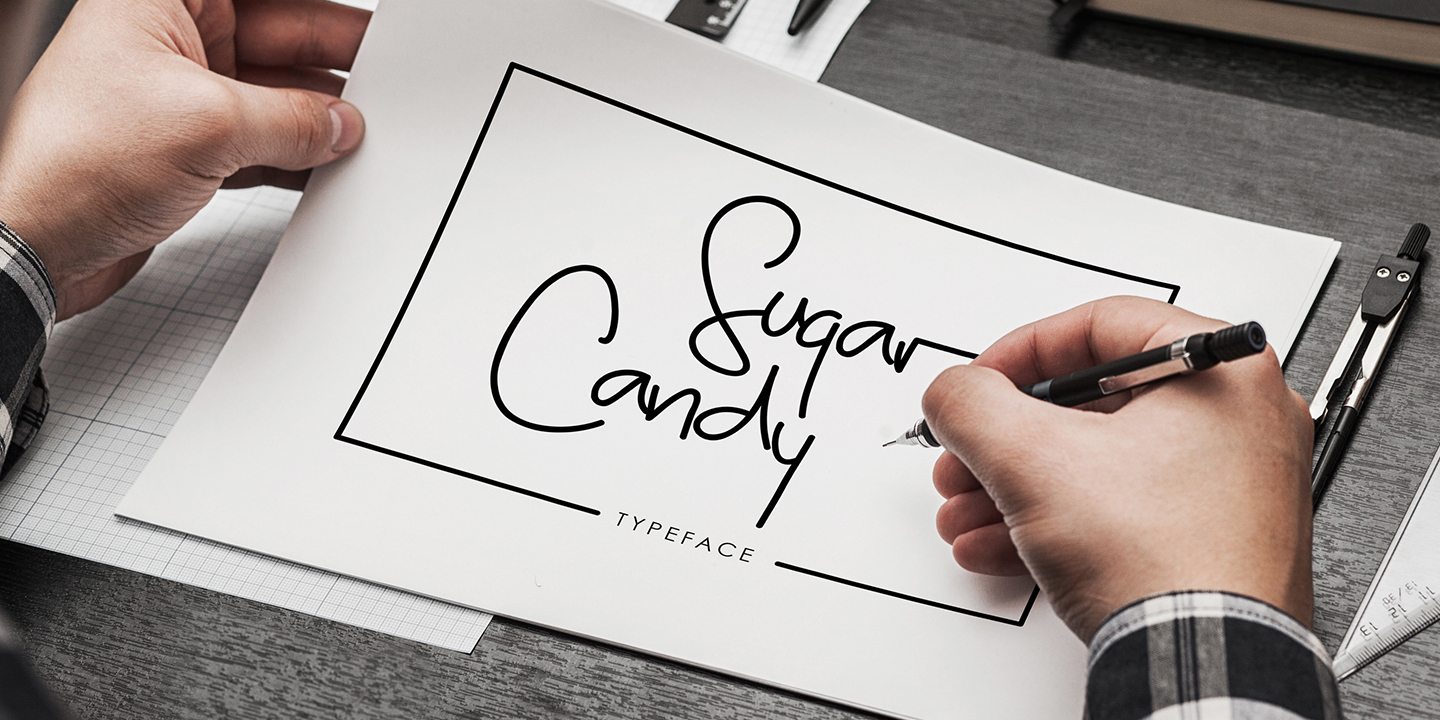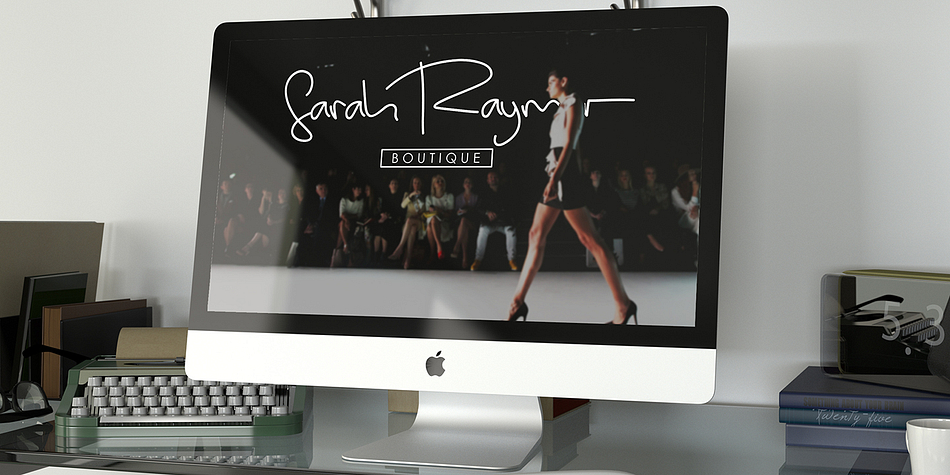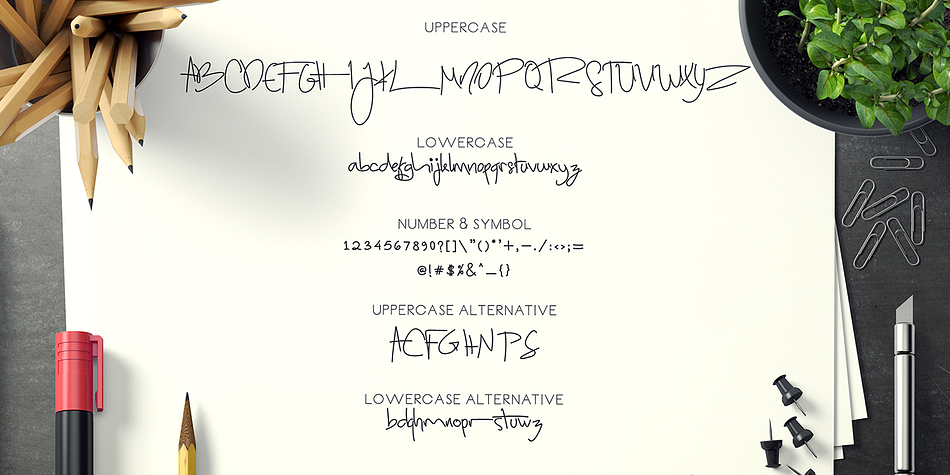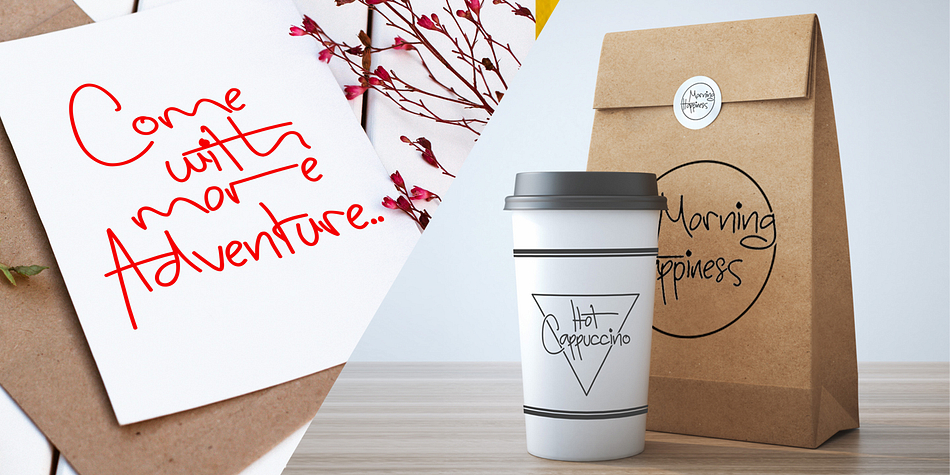
Sugar Candy is a hand drawn font published by madeDeduk.
Sugar Candy is a signature typeface inspired by classic handwriting style. It is suitable to create any branding, product packaging, invitation, quotes, t-shirt, label poster etc.